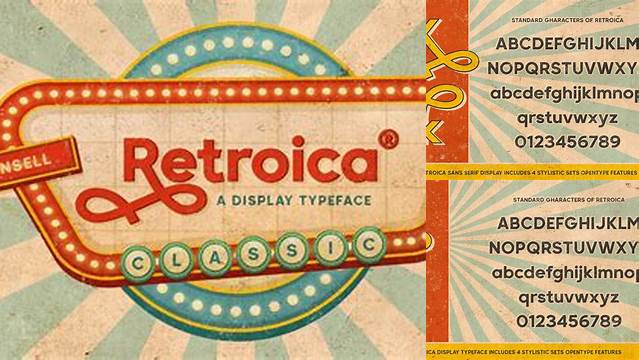
Hey guys! Let's dive into the awesome world of Retroica fonts! These fonts are all about bringing back that groovy, nostalgic vibe – think classic cars, vintage posters, and the whole shebang. Whether you're a designer, a hobbyist, or just someone who digs the past, free Retroica fonts are a fantastic way to add some serious character to your projects. In this article, we'll explore everything you need to know, from where to snag these fonts to how to use them like a pro. So, buckle up, because we're about to take a trip back in time, all thanks to some seriously cool typography!
Remember, the "best" font really depends on your project. Experiment with different styles to see what works. Try pairing different fonts together to create a unique look. And most importantly, have fun! Playing around with fonts is half the fun of design.
How to Use Free Retroica Fonts in Your Designs
So, you've got your awesome free Retroica fonts, and you're itching to use them. But how do you actually incorporate them into your designs? The key is to use them strategically, and the goal is to create a consistent retro aesthetic. Here are some tips and ideas to get you started:
- Pair with complementary fonts: Don't use the same retro font for everything. Mix and match with other fonts to create a balanced design. Try pairing a bold retro headline font with a clean, modern font for body text.
- Consider the color palette: Retro designs often use specific color palettes. Think muted tones, earthy colors, and pops of bright, bold hues. Using the right colors can really enhance the retro vibe.
- Use vintage imagery: Combine your retro fonts with vintage photos, illustrations, or textures. This will help to create a cohesive retro look. You can find free vintage images on websites like Unsplash or Pexels.
- Create a mood board: Before you start designing, create a mood board to get inspiration. Gather images, fonts, and color palettes that you like. This will help you to stay consistent with your retro theme.
- Experiment with effects: Try adding effects like drop shadows, outlines, or textures to your text. These can help to give your fonts a more vintage feel.
Here are some specific design applications where retro fonts shine:
- Logos: Retro fonts are excellent for creating logos that have a vintage feel. Combine them with vintage icons or illustrations to really make them pop.
- Posters and Flyers: Retro fonts are perfect for posters and flyers for events, promotions, or announcements. Consider using bright colors and eye-catching layouts.
- Websites: Retro fonts can add a unique touch to your website. Use them for headlines, subheadings, or even small blocks of text. Just make sure your font choices are readable.
- Social Media Graphics: Retro fonts are a great way to make your social media posts stand out. Use them to create engaging graphics, quotes, or announcements.
Retroica Font Styles: Exploring the Variety
The beauty of Retroica fonts lies in their diverse range of styles, each echoing a unique era and aesthetic. You're not just limited to one